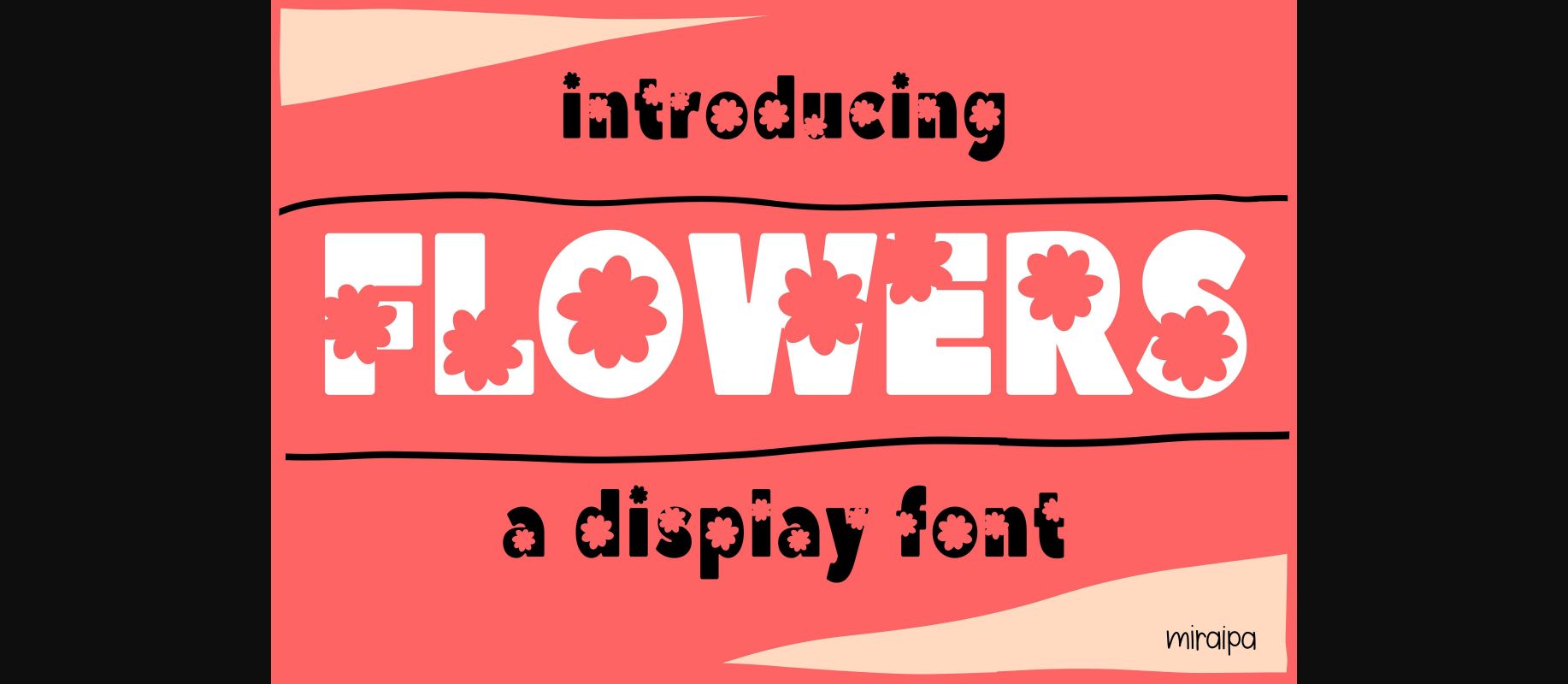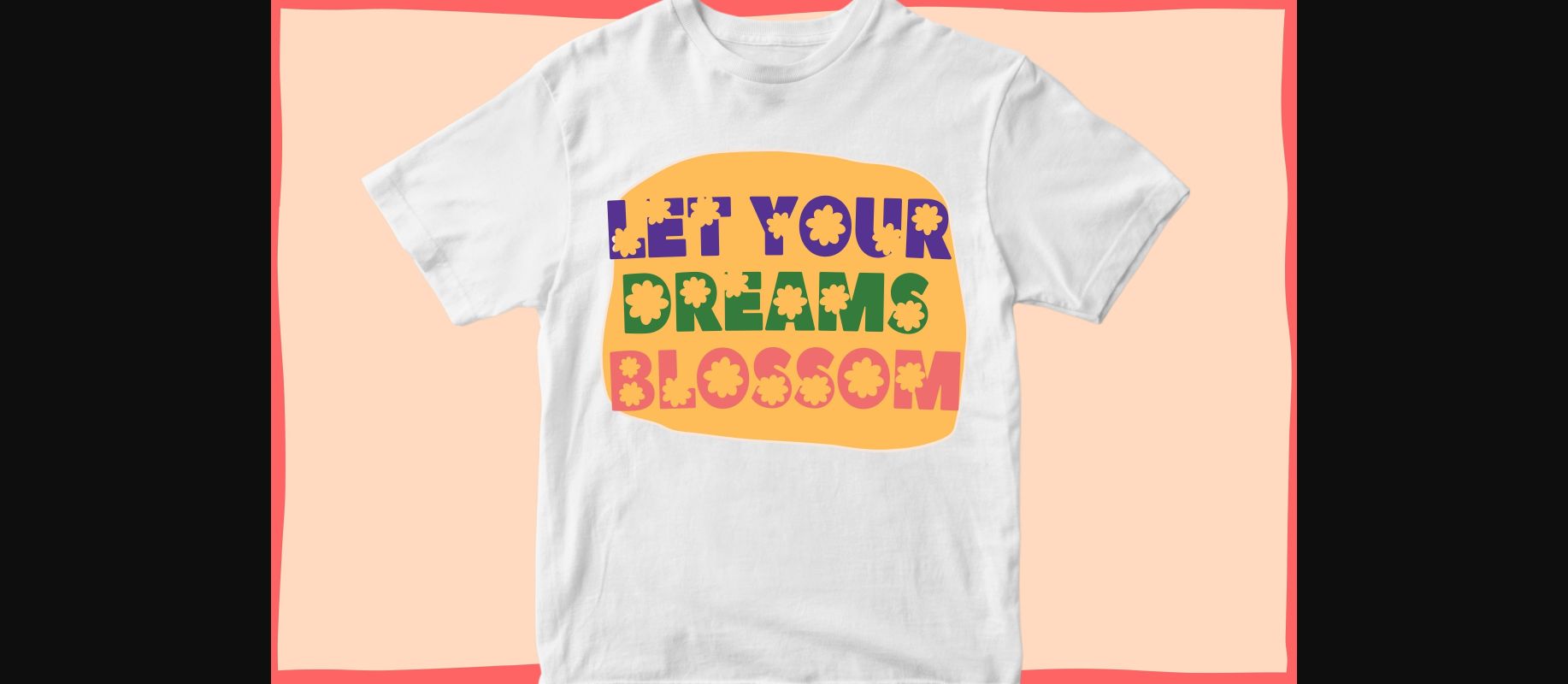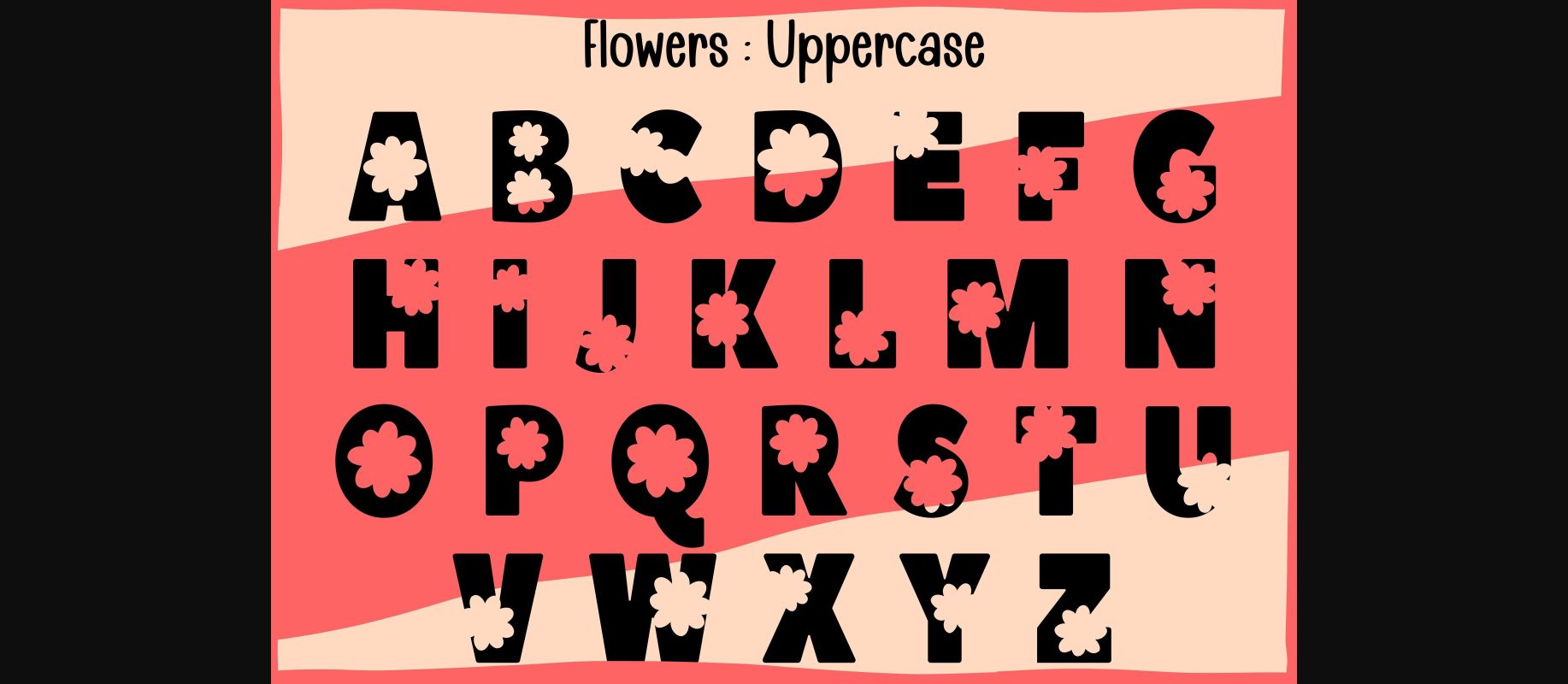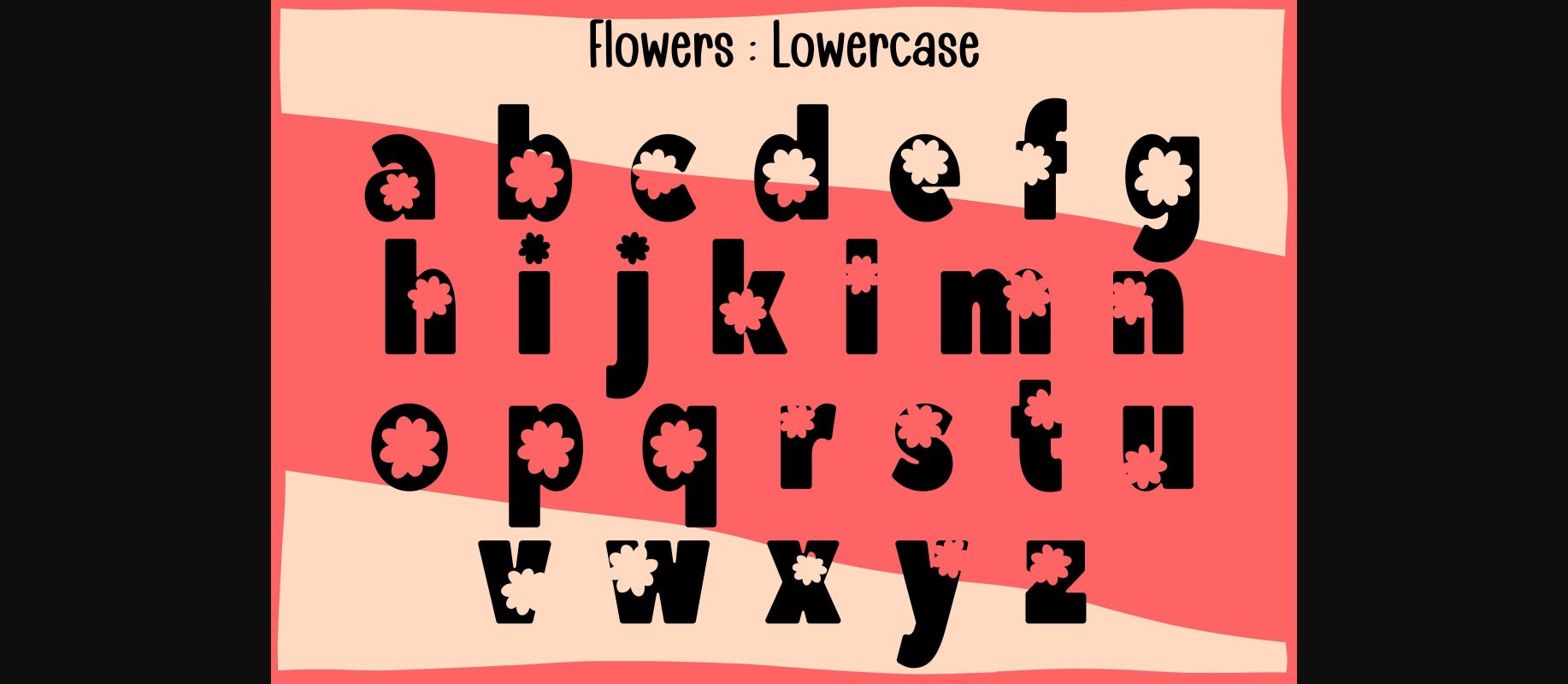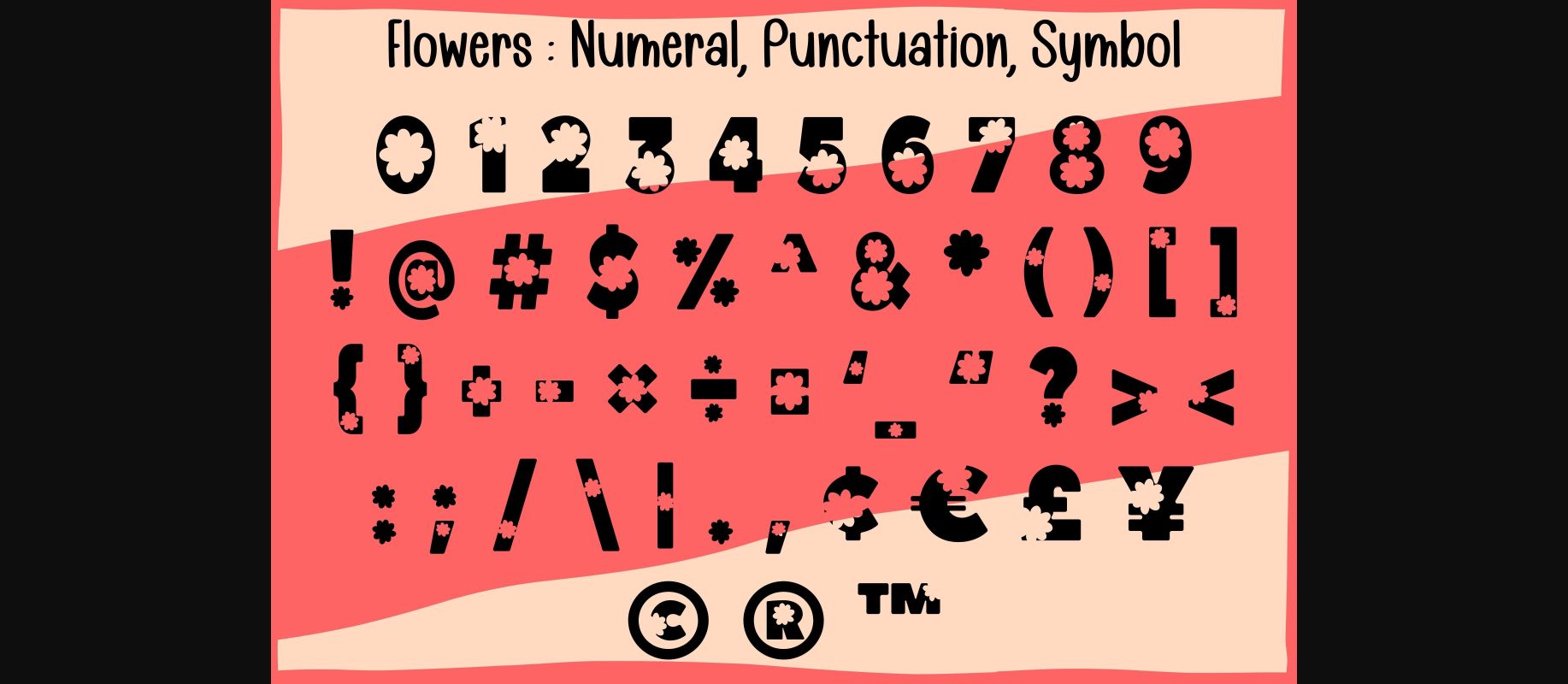
About Flowers Font
Flowers is a friendly and lovely decorative font perfect for mom projects, weddings, back-to-school, party decorations, party invitations, posters, blogs, clothing, greeting cards, social media posts, or anything that needs a friendly touch. Add it now to your fonts library, and it will bring any of your DIY projects to life.